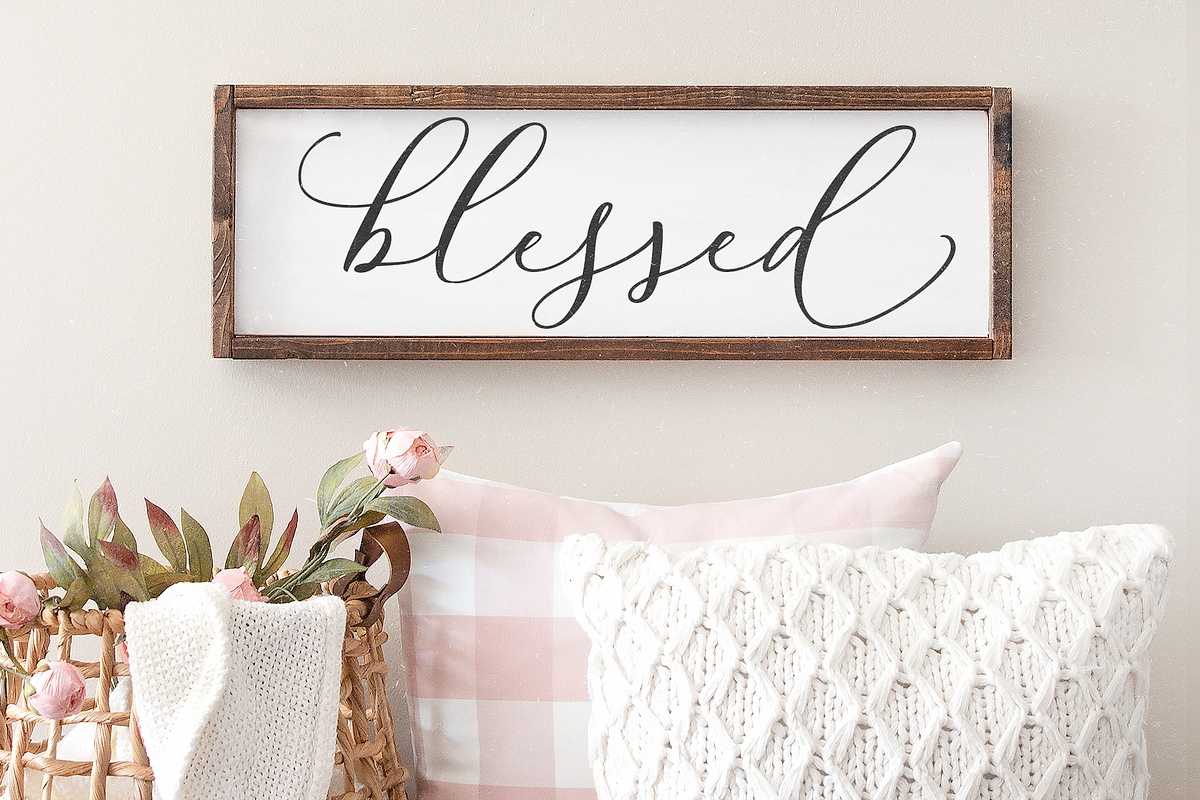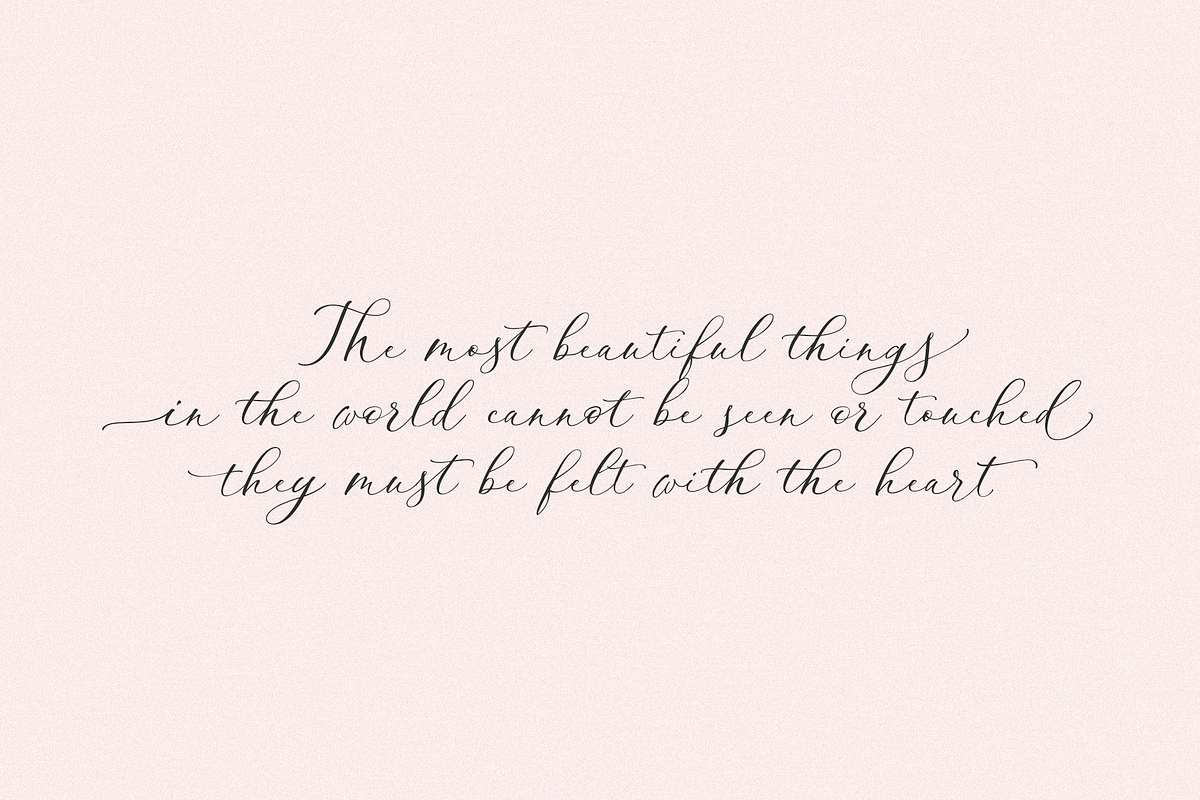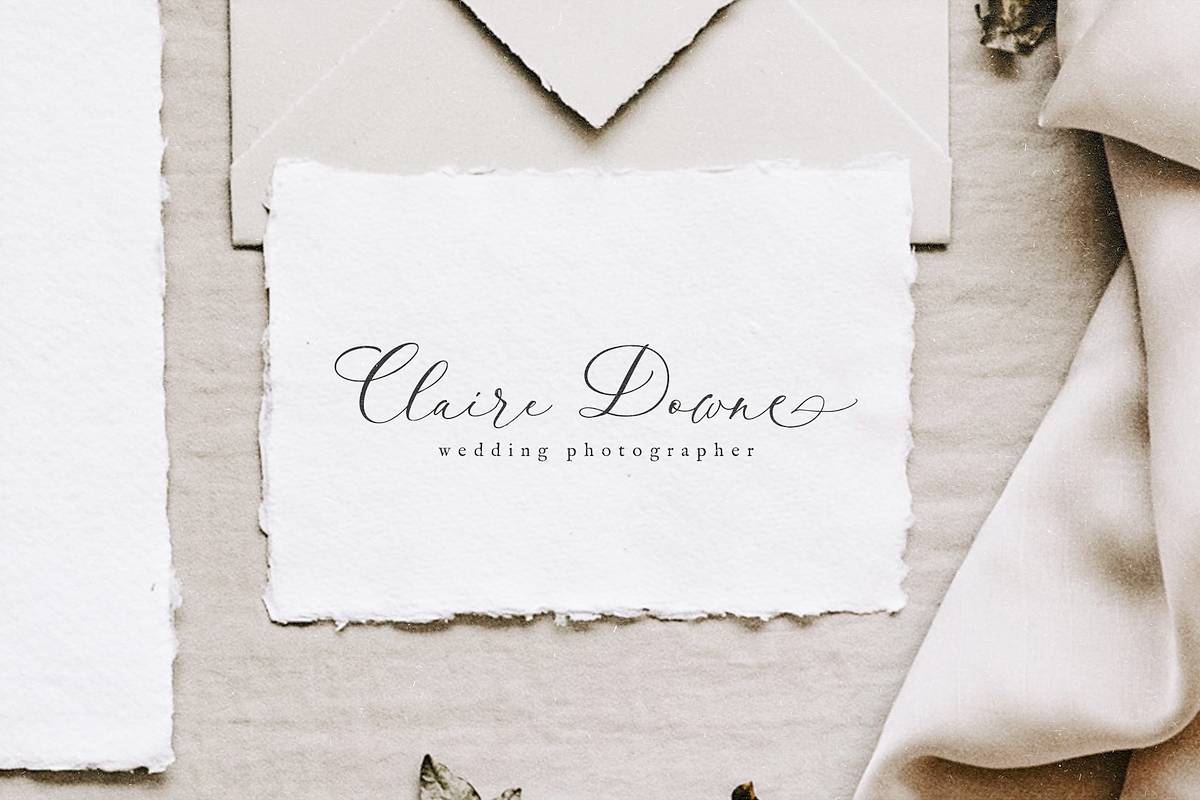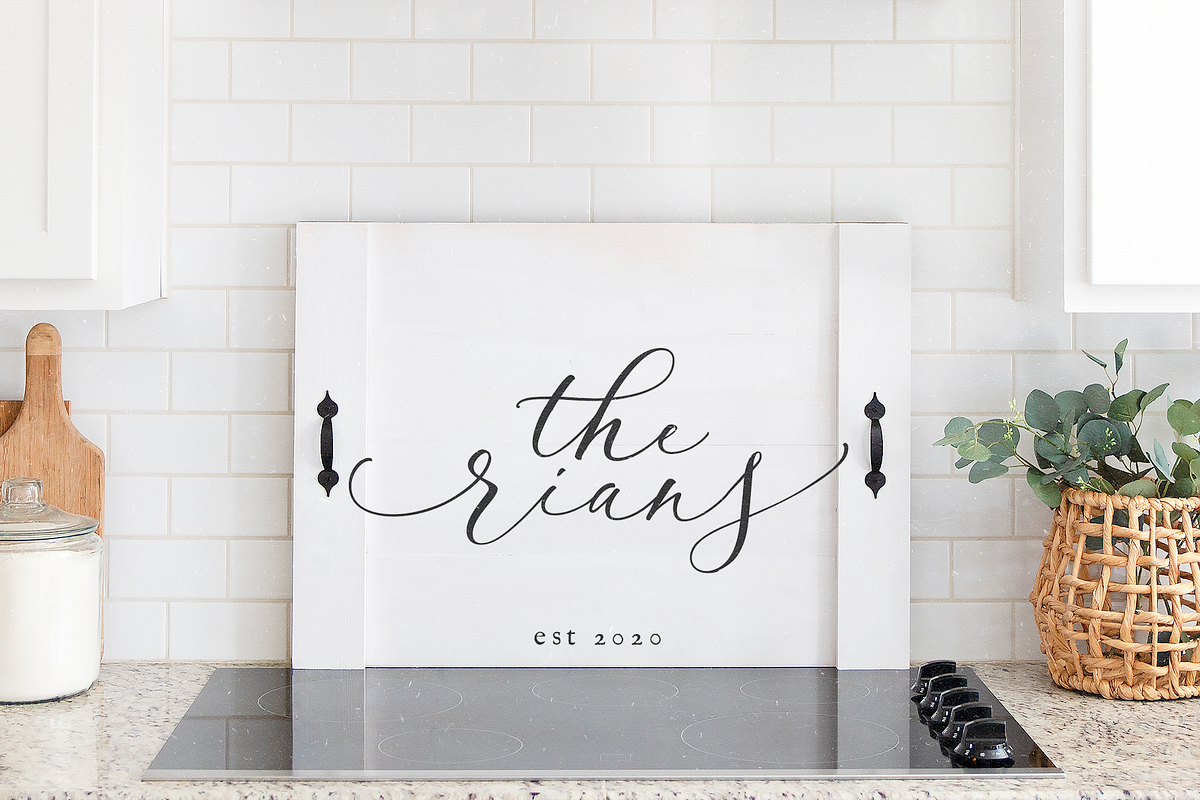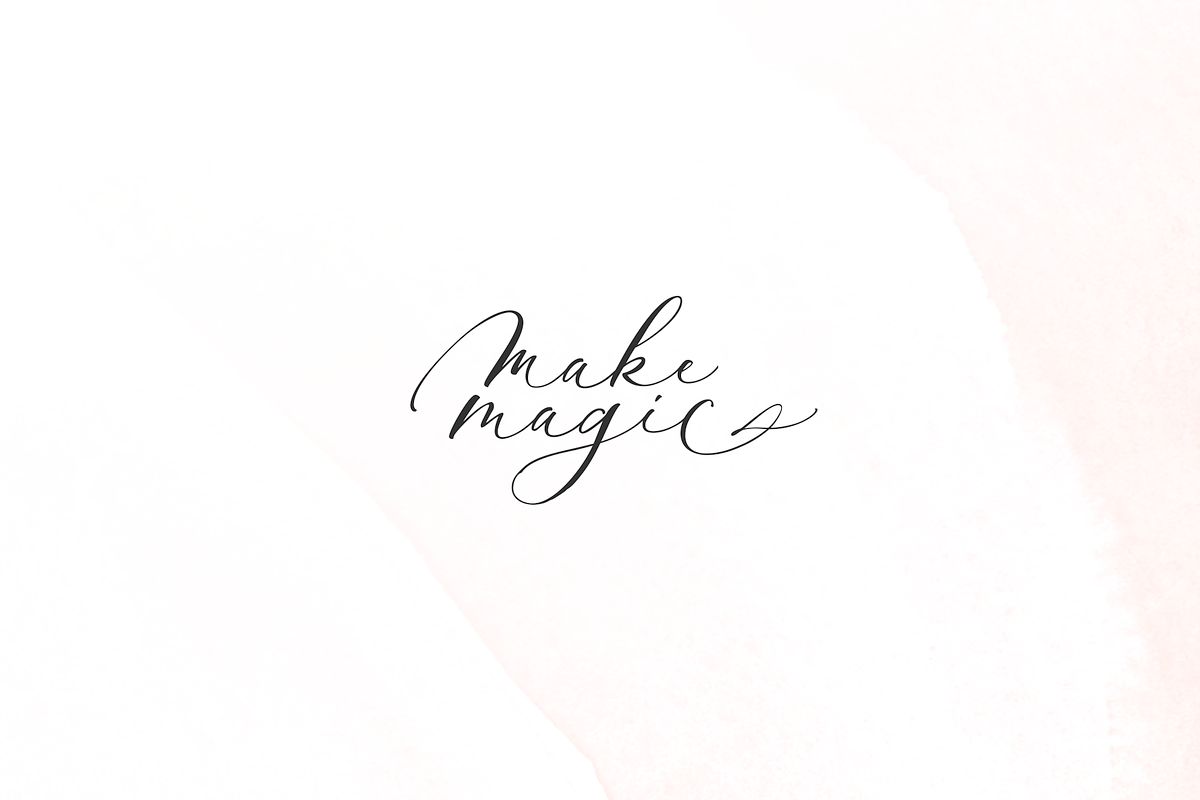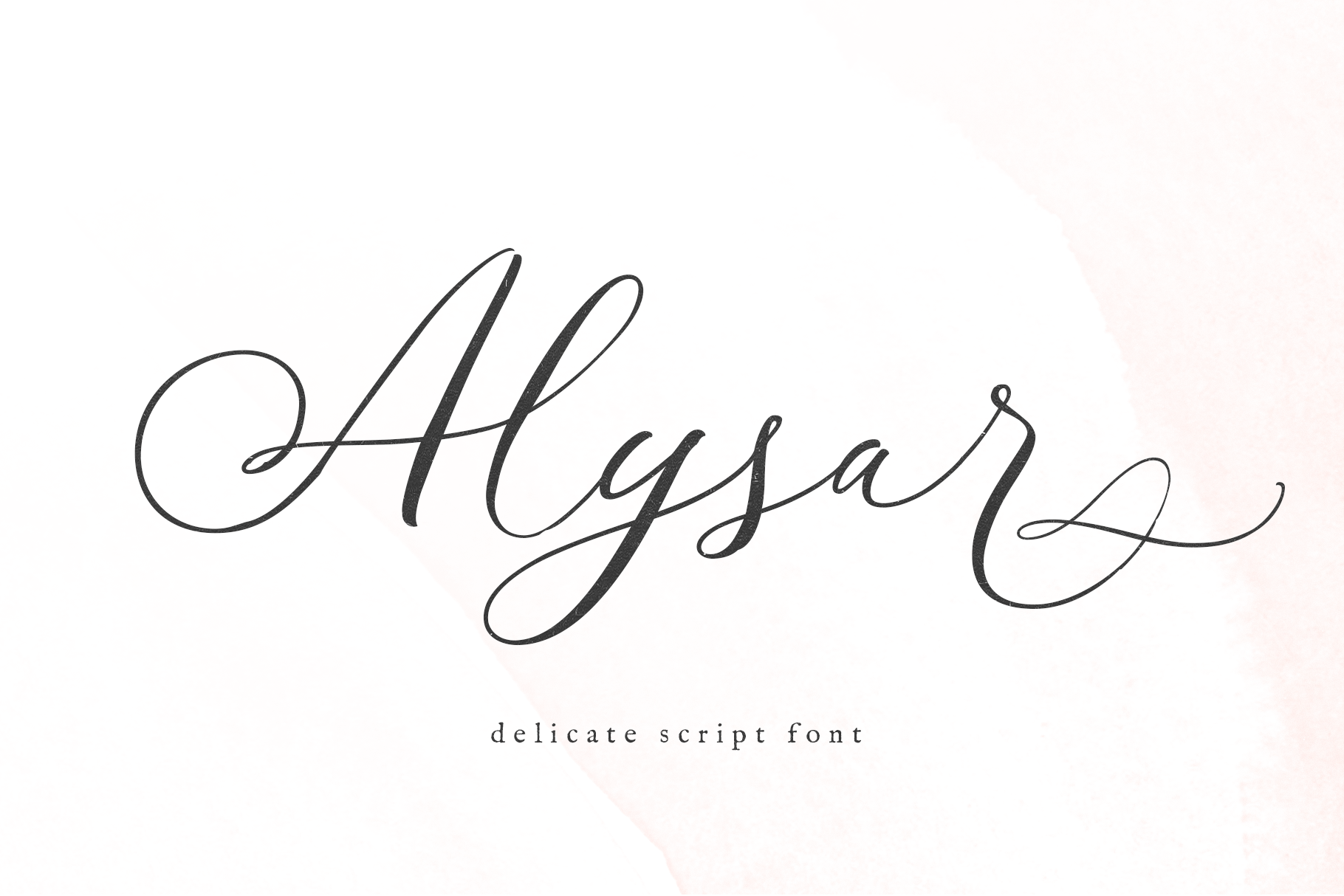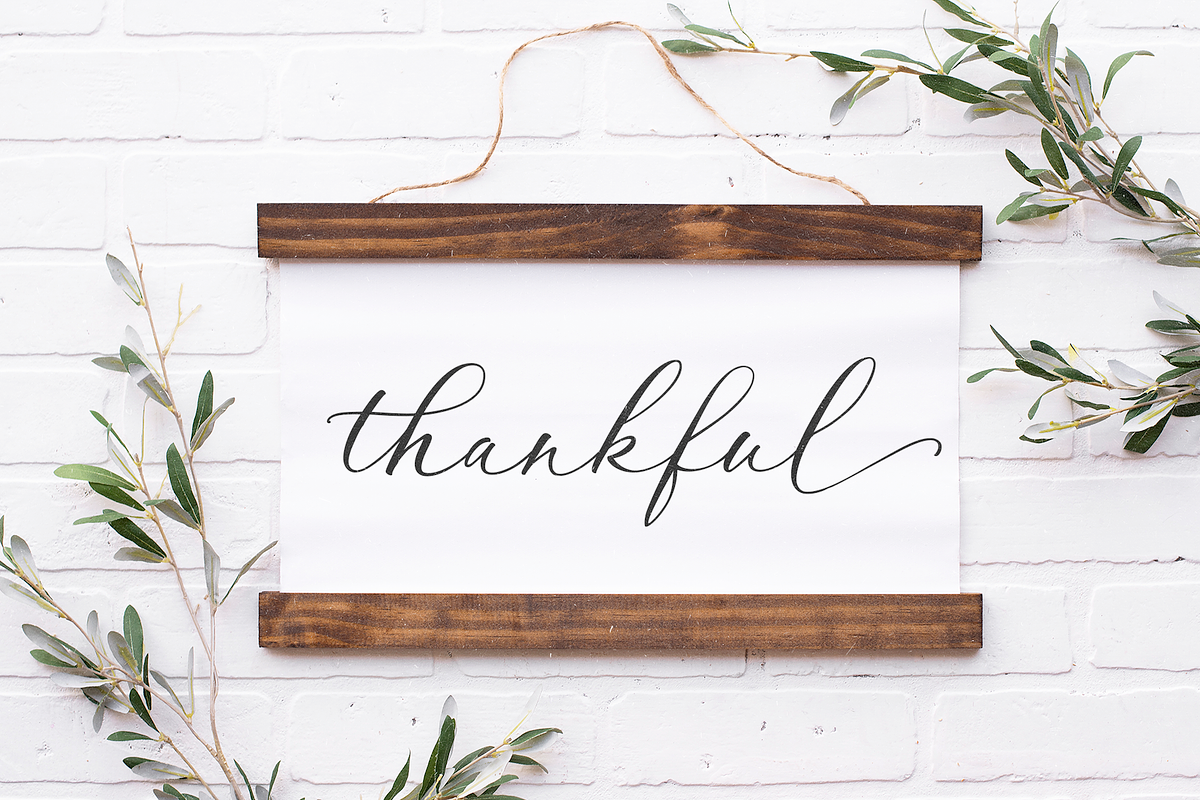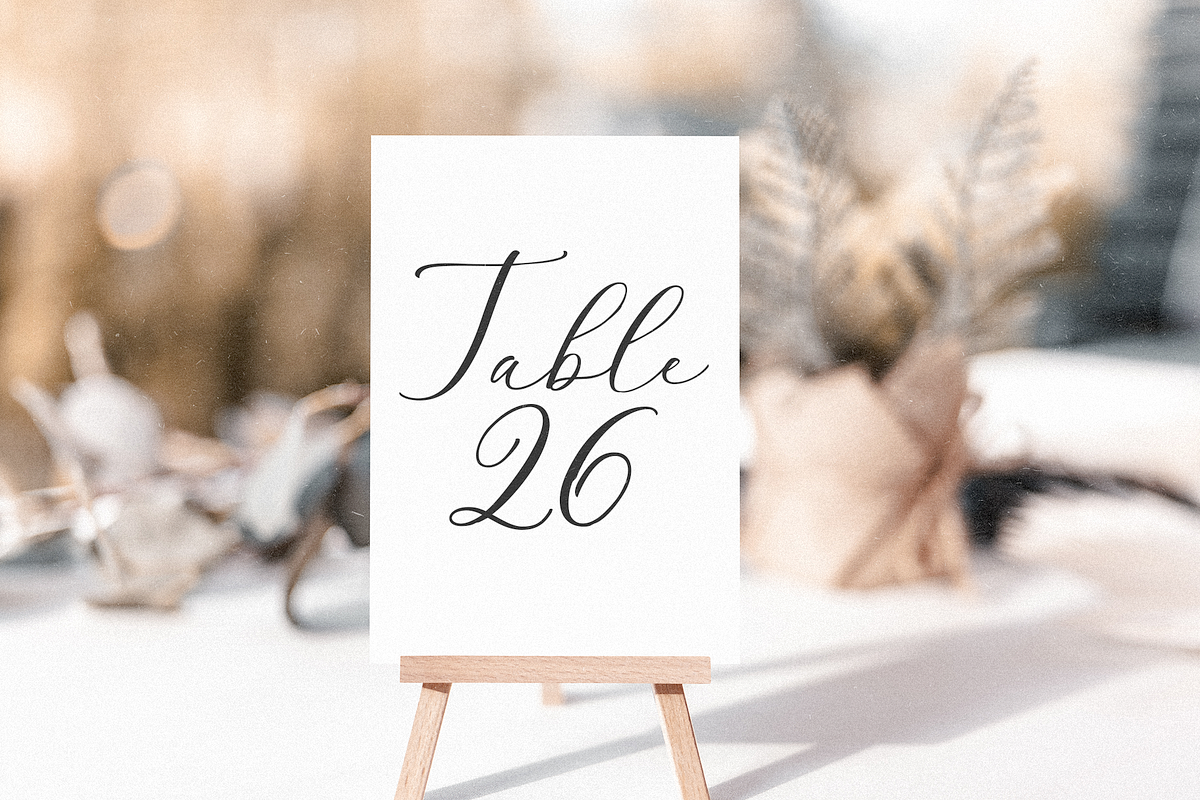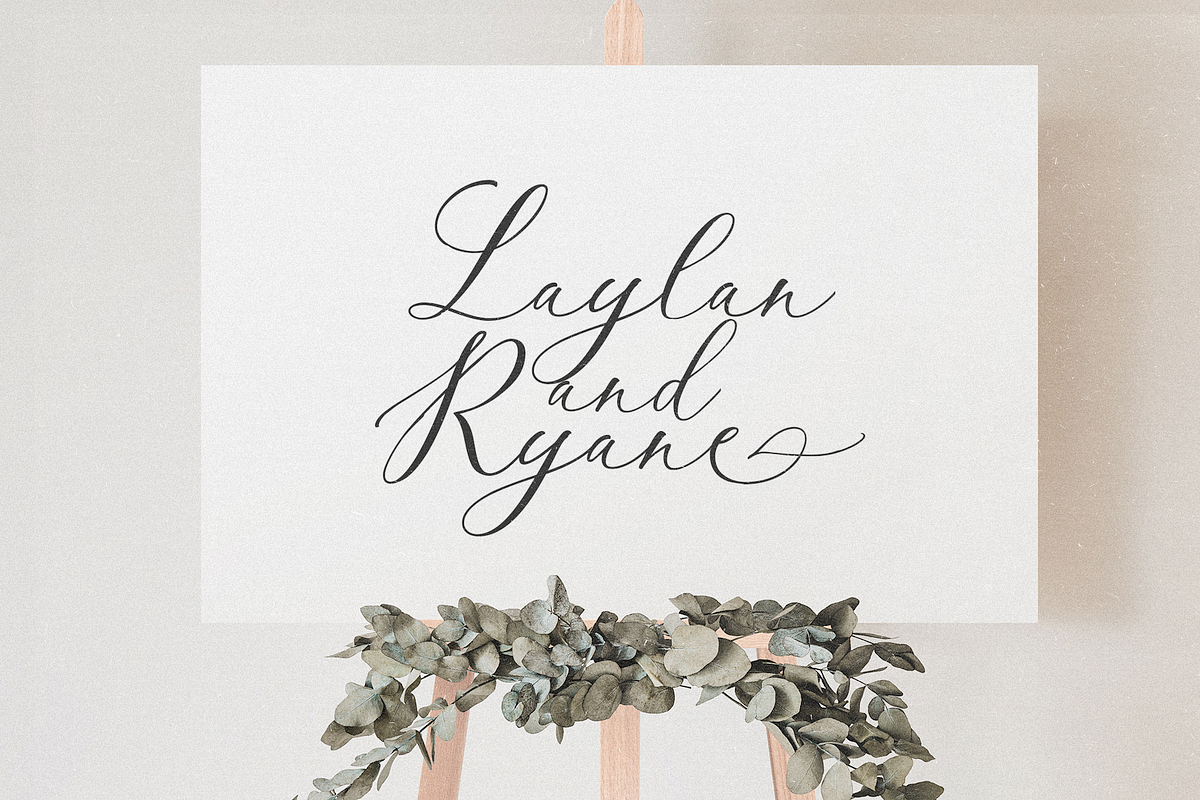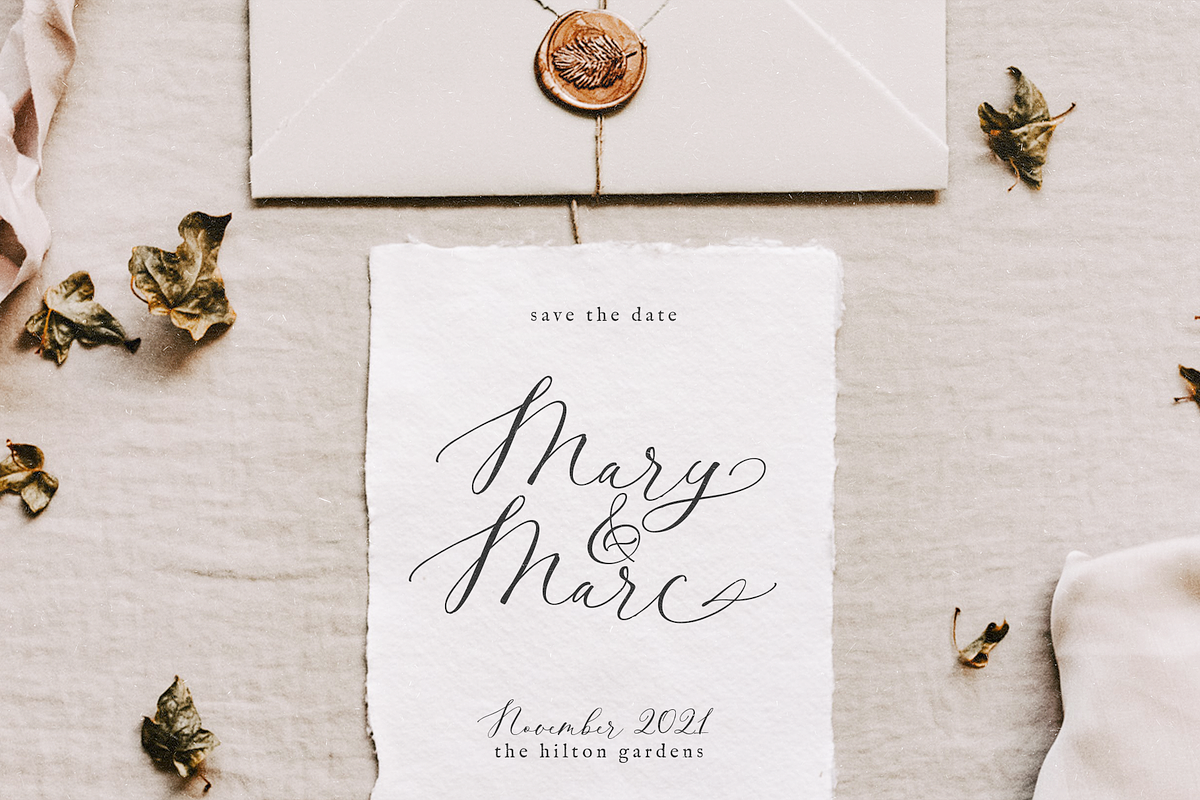
Alysar | Delicate Calligraphy Font
Alysar is a delicate + modern handwritten font.
Some letters are rigid, some strokes are "scratchy" - and that is the beauty of this font. This font is intended to look authentic - as if it just left your nib.
This font is perfect for your wedding invitations, announcements and decor, branding, logos, quotes, labels, signs and more!
This font includes alternate letters with swashes embedded into the font file for all lowercase letters - beginning and ending. These letters are easily accessible through Photoshop and Illustrator